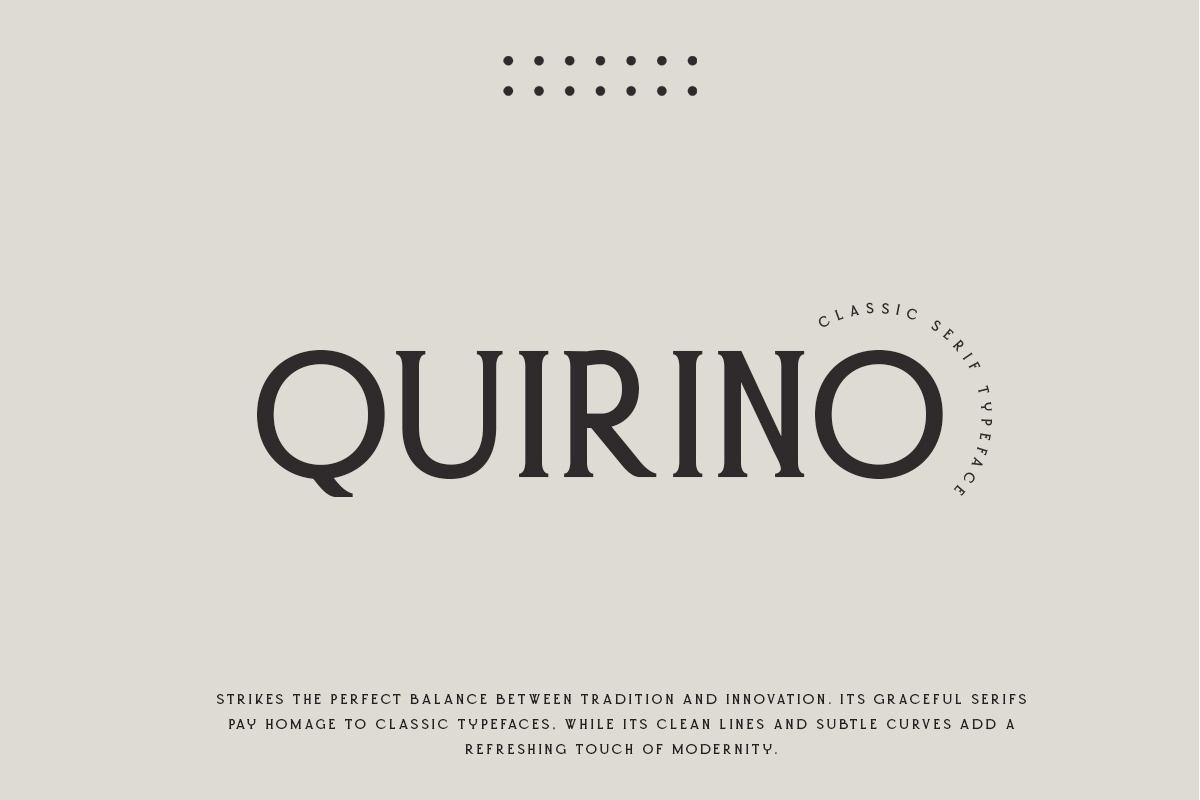
Timeless, sophisticated, and full of character, Quirino - Serif Typeface Free Download is a classic serif font designed with a modern twist. Perfect for branding, editorial design, logos, packaging, and any project that requires a refined and elegant touch, Quirino offers a perfect blend of traditional serif structure with contemporary appeal.
With its clean lines, well-balanced letterforms, and distinctive serifs, Quirino is versatile enough for both display and body text, providing clarity and sophistication. Whether you're creating a luxury brand or working on an editorial layout, Quirino adds a touch of class and professionalism to your designs.